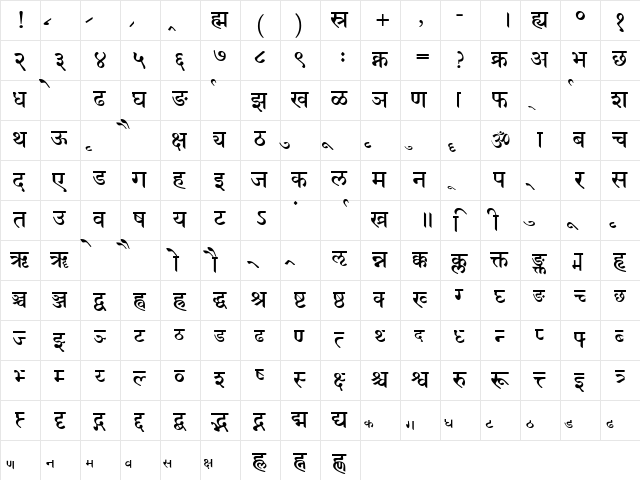
iitmsans Regular
| Designer | SDL |
Design Context for iitmsans Typeface
iitmsans is a composed and adaptable typeface that performs quietly and consistently across a wide range of design contexts.